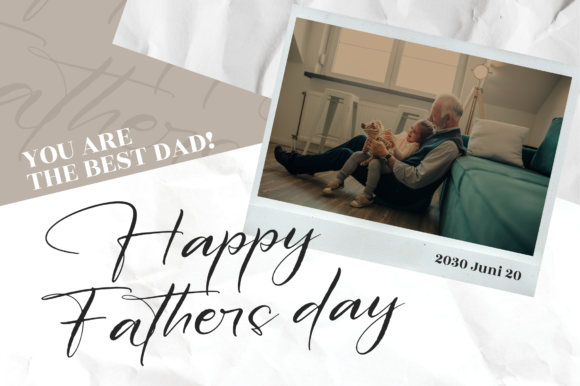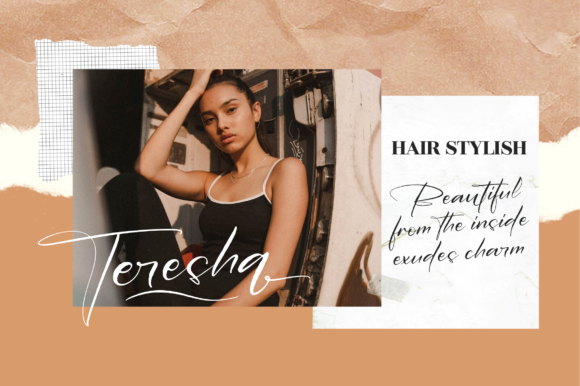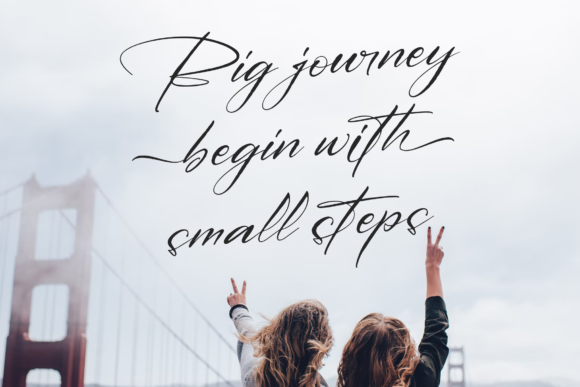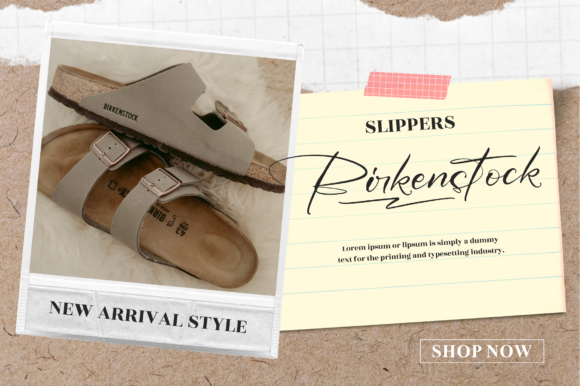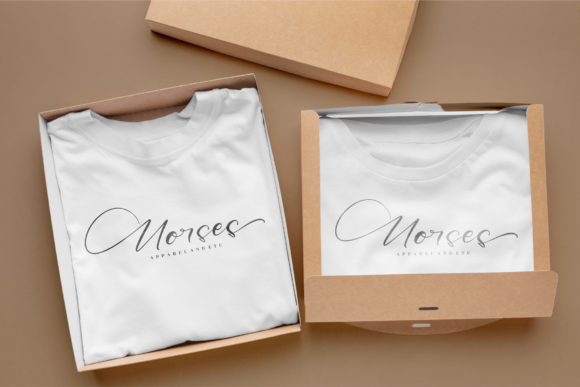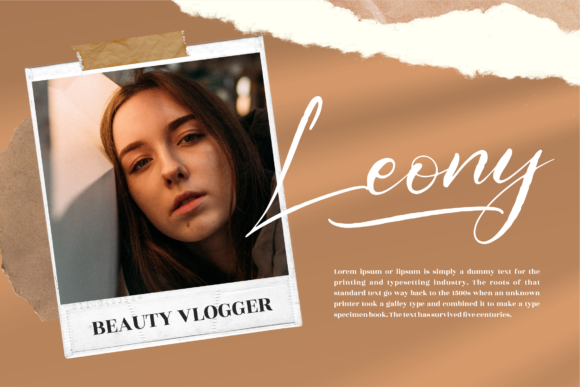
The Perfect Match for Your Next Design Project
Have you ever stared at a blank page, trying to decide on the perfect font to capture the essence of your latest creative endeavor? It’s a moment we’ve all been in, and it’s often the starting point for something truly special. For me, it was the moment I discovered the Delmonte Belarina Font – a romantic and sweet calligraphy typeface that brought my design to life.
Delmonte Belarina Font is more than just a font; it’s an experience. Its elegant characters dance along the baseline, adding a touch of luxury to any project. Whether you’re designing a wedding invitation, a luxury brand’s logo, or a heartfelt letter, this font is sure to elevate your design. And with its PUA encoding, accessing all the amazing glyphs and ligatures is a breeze, giving you the freedom to get creative.
Delmonte Belarina Font Key Features
- Font Family: Delmonte Belarina
- Character Set: Latin, Cyrillic, Greek, and extended Latin characters
- Unique Characteristics: Elegant script, sophisticated feel, and subtle flair; ideal for formal invitations, wedding stationery, and luxury branding
Delmonte Belarina Font Review
Delmonte Belarina is a beautiful, elegant font that has a lot to offer. Here are some of its standout features:✨
- It has a classic, sophisticated look that works well for high-end brands, luxury goods, and even formal invitations.
- The font is highly legible, making it easy to read even at smaller sizes.
- It has a wide range of language support, making it a great option for global brands and businesses.
- The font comes in a variety of weights, from light to bold, giving you plenty of options to choose from.
However, there are a few limitations to consider:⚠️
- The font may be too formal for some brands, and may not be suitable for more casual or creative projects.
- The font may not be as versatile as some other options, and may not work well with bold or playful designs.
Overall, I think Delmonte Belarina is a great option for designers who are looking for a classic, sophisticated font. While it may not be the best choice for every project, it’s definitely worth considering for high-end or formal designs.
Getting the Most Out of Delmonte Belarina
To get the most out of the Delmonte Belarina font, use it for:
1. Headings and titles to add a touch of elegance and sophistication.
2. Body text to create a clean and modern design.
3. Logos and branding to create a unique and recognizable identity.
Alternatives to Delmonte Belarina Font
Great Vibes is a modern script font that works well for creative and artistic projects. It has a flowing, handwritten feel that is perfect for titles, headings, and quotes. Great Vibes is a great alternative to Delmonte Belarina Font for designers who want a more casual and laid-back look.
Comparison: While Delmonte Belarina Font has a more elegant and sophisticated feel, Great Vibes is more relaxed and free-flowing. Great Vibes is a better choice for designers who want to add a touch of whimsy and personality to their projects.
Alex Brush is a elegant script font that is perfect for luxury and high-end brands. It has a classic, sophisticated feel that is great for titles, headings, and body text. Alex Brush is a great alternative to Delmonte Belarina Font for designers who want a more refined and polished look.
Comparison: While Delmonte Belarina Font has a more vintage and nostalgic feel, Alex Brush is more modern and sleek. Alex Brush is a better choice for designers who want to create a sense of luxury and sophistication.